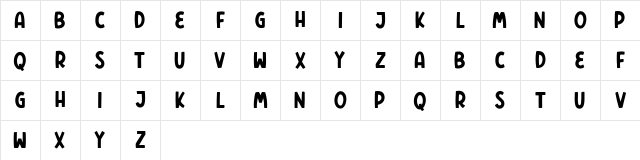
Polers Free Regular Free Font
Polers Free Regular
Foundry: MaulanaCreative
Designer: MaulanaCreative
Design Context for Polers Free
Polers Free is a composed and adaptable typeface that performs quietly and consistently across a wide range of design contexts.
Who designed the Polers Free Regular font?